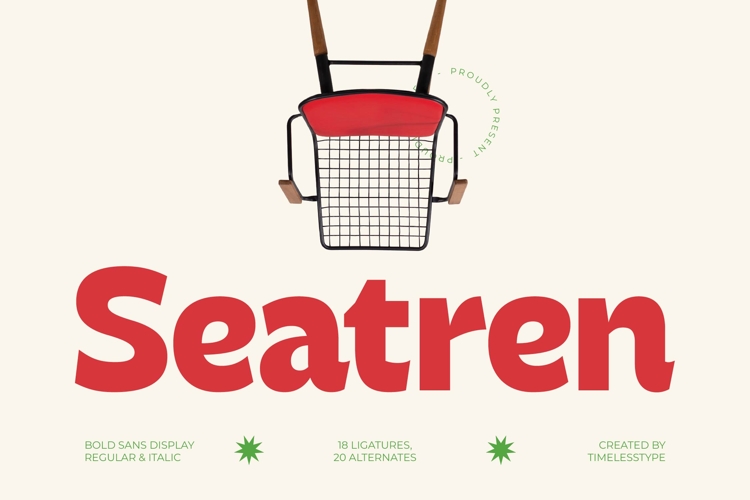
Seatren - Bold Sans Display Font
Command immediate attention with the confident curves of Seatren - Bold Sans Display Font. This typeface is a heavy-hitting display sans that marries a distinct vintage flair with ultra-modern legibility. Its robust weight and gently rounded terminals create an unmistakable aesthetic, perfect for designs requiring a strong, yet approachable, personality. Seatren - Bold Sans Display Font provides the visual foundation necessary for high-impact branding and marketing campaigns that need to feel both contemporary and nostalgically resonant.